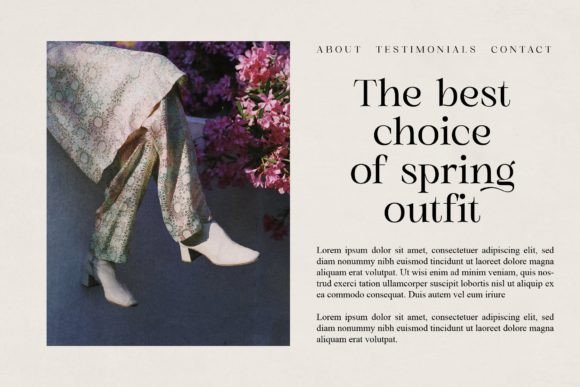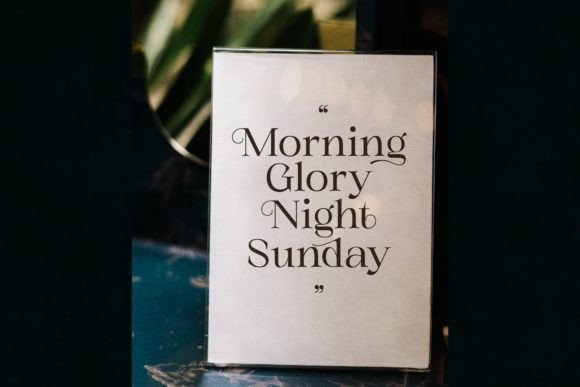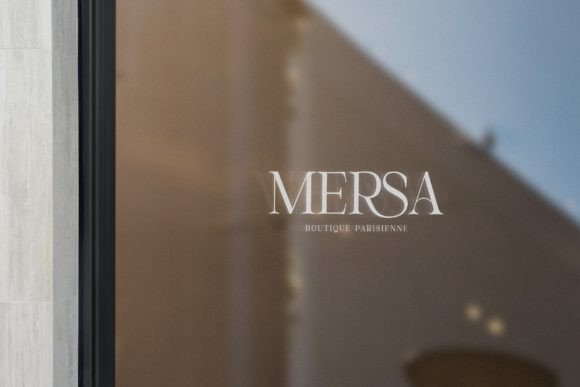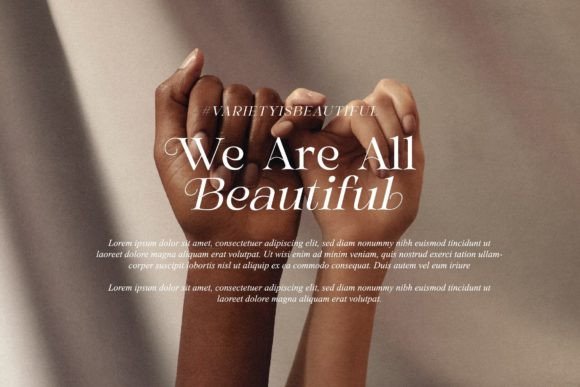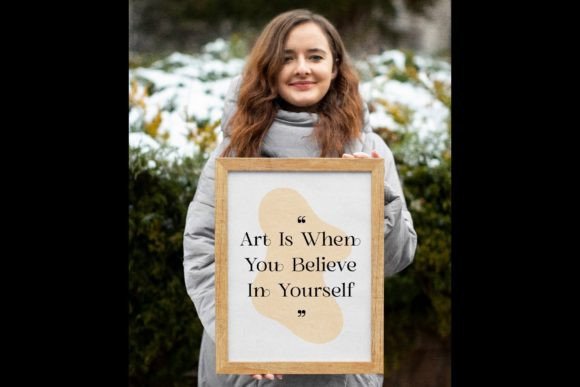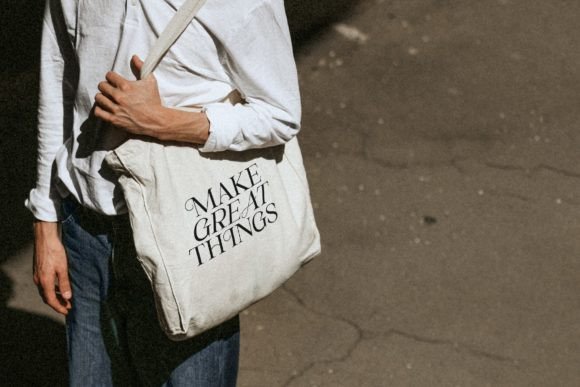
Introduction to Gold Song Font
Gold Song is a modern and classic serif font that has its own unique style.
This typeface is perfect for luxury logos, books, fashion brands, magazines, apparel, quotes, and so much more .
Key Features of Gold Song Font